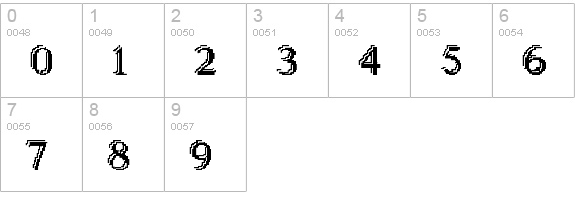
Blockstepped Font Details
Introducing Blockstepped font, a modern and versatile typeface that is sure to make a bold statement in your design projects. This unique font features clean lines and distinct block-like shapes that give it a strong and impactful presence. Whether you're working on a poster, logo, or website design, Blockstepped font is the perfect choice to add a touch of contemporary style. What's even better is that Blockstepped font is available for free download at FontsMarket.com. So, you can easily access this high-quality font and incorporate it into your creative projects without any cost. Don't miss out on the opportunity to elevate your designs with the eye-catching appeal of Blockstepped font. Download it today and let your creativity shine!